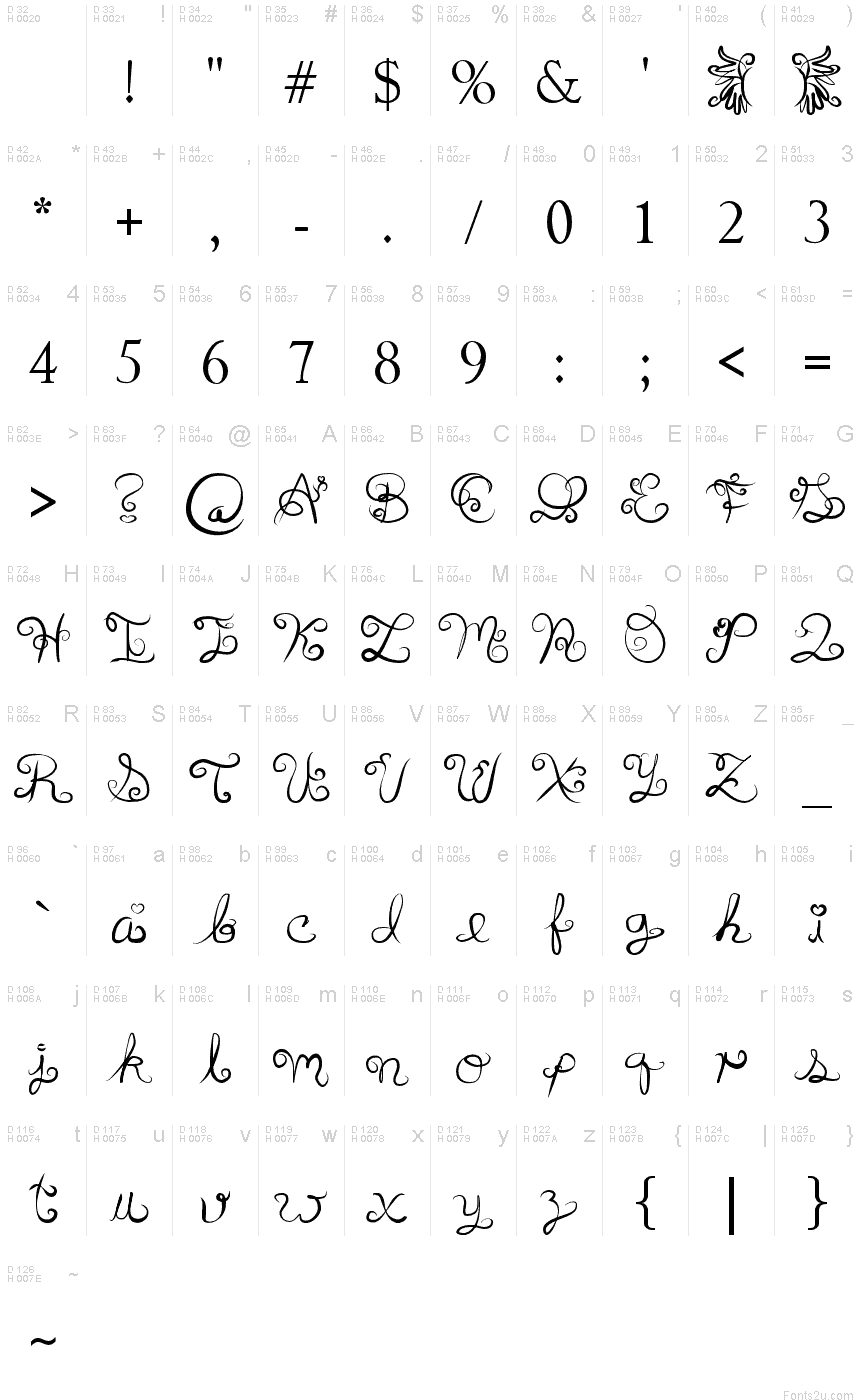
Anyk is a free curly decorative font whose letters twist into extravagant loops, tight spirals, and long sweeping flourishes that often cross neighboring strokes. Stroke widths shift sharply, and the deliberately uneven proportions make each form resemble a hand-drawn monogram or piece of elaborate ironwork rather than conventional display lettering.
Its vine-like curls can echo floral illustration, lace, and filigree patterns on wedding invitations, boutique packaging, and fashion editorials. In music posters and event branding, the looping forms can become part of the surrounding ornament and give the lettering a theatrical role suited to romantic, eccentric, or surreal subject matter with a distinctly handmade edge.